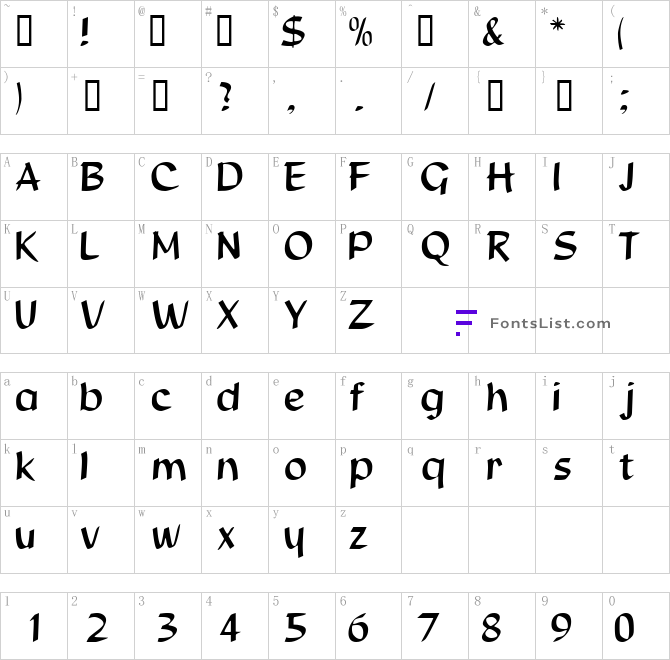
- Font Name:BeauregardDisplaySSi
BeauregardDisplaySSi.ttf is a very beautiful artistic font, BeauregardDisplaySSi.ttf is widely used in the design and printing of various books and pictures,BeauregardDisplaySSi.ttf has a strong visual impact,BeauregardDisplaySSi.ttf is a commonly used font in newspapers, magazines and books, and is used in posters, e-commerce Poster design, store design, logo design, font design and other fields.BeauregardDisplaySSi.